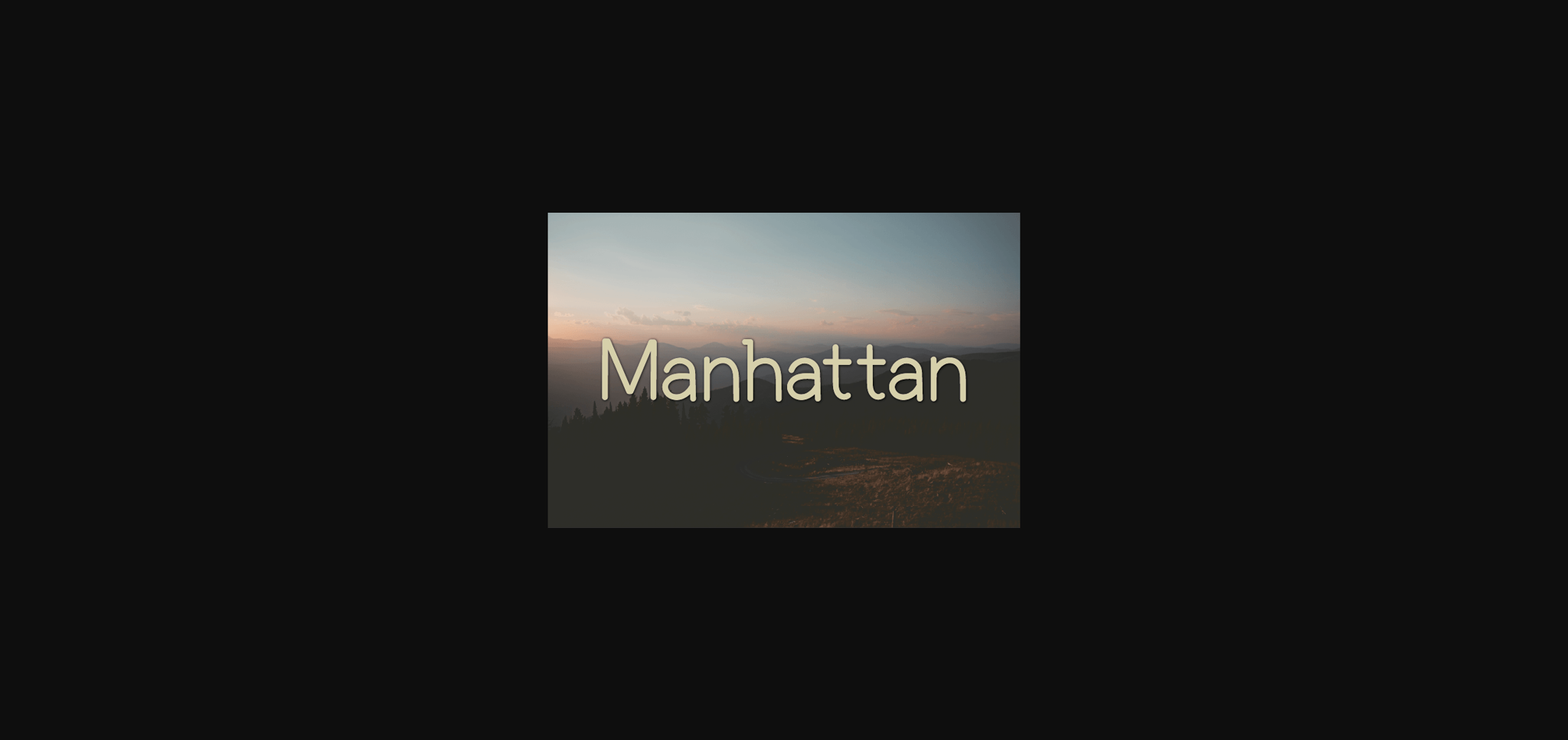
HomeSans Serif FontsManhattan Font Sans Serif Fonts Manhattan Font FacebookXPinterestWhatsApp 1 of 6 ... Manhattan Font Poster 2... Manhattan Font Poster 3... Manhattan Font Poster 4... Manhattan Font Poster 5... Manhattan Font Poster 6... About Manhattan Font Manhattan is a casual and neat sans serif font that impresses through its natural and elegant style. This typeface will enhance your craft with little effort, making your product stand out from the competition. DOWNLOAD NOW People also explored Cat Font Aesthete Font Ovum Font Babball Font Qalam Font North Little Font Rushtyle Font Ronaly Font Rosyitha Signature Font 437 0 TagsManhattan Font Previous articleBrocklyne FontNext articleHarittage Font LEAVE A REPLY Cancel reply Comment: Please enter your comment! Name:* Please enter your name here Email:* You have entered an incorrect email address! Please enter your email address here Website: Save my name, email, and website in this browser for the next time I comment. Personal Use Free Euphorigenic Personal Use Free Read more about this font Millea Personal Use Free Read more about this font Little Pigeon Personal Use Free Read more about this font Quentin Personal Use Free Read more about this font BLOG How to Install and Use Fonts on Windows, macOS, and Web Projects How to Install and Use Fonts on Windows, macOS, and Web Projects Fonts are a crucial part of design and branding. Whether you’re designing a... Fonts That Capture the Spirit of New York City Free Fonts Risk: Why Free Fonts Can Be Dangerous for Designers Best Fonts for YouTube Videos: Make Your Thumbnails Stand Out